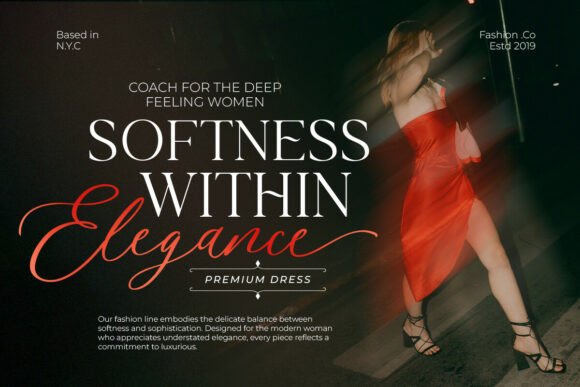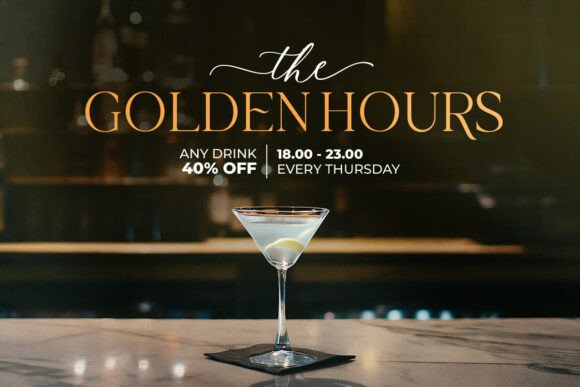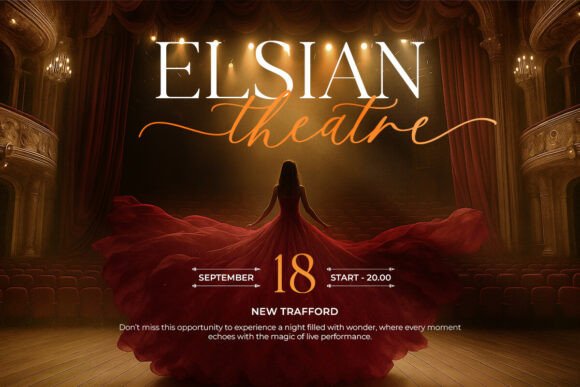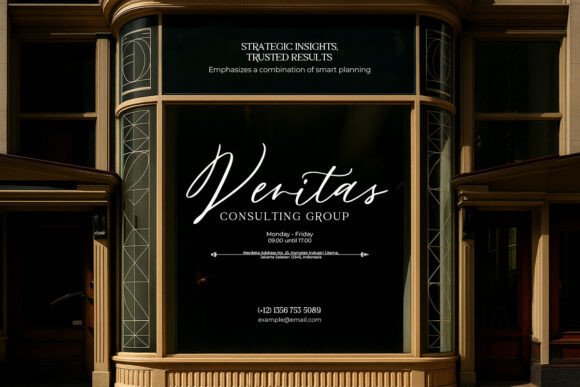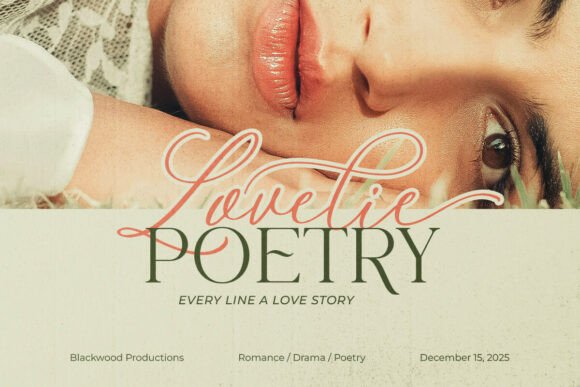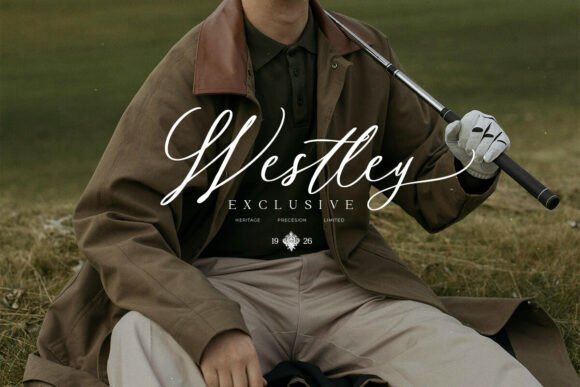
Eternal Melody Duo Font: A Timeless Typographic Pairing for Romantic Designs
Are you searching for a font duo that exudes romance, elegance, and versatility? Look no further than the Eternal Melody Duo Font. This stunning pair combines a classy serif with a graceful handwritten script, creating a beautiful typographic pairing perfect for a wide range of design projects. In this article, we’ll dive into the features and benefits of Eternal Melody, and explore how it can elevate your designs, especially for Valentine’s Day and other romantic occasions.
A Perfect Pairing: Serif and Script Fonts
The Eternal Melody Duo Font consists of two complementary fonts: a serif font and a handwritten script font. The serif font features all caps characters, providing a sophisticated and classic look that’s ideal for headlines, titles, and branding. The script font, on the other hand, adds a personal and flowing touch, perfect for adding a touch of elegance and whimsy to your designs. With a range of ligatures and stylistic alternates, the script font offers endless possibilities for creative expression.
Eternal Melody is designed to work beautifully together, making it perfect for a wide range of design projects, including:
- Branding: Create a lasting impression with a custom logo or typography that showcases your brand’s personality.
- Logos: Design a unique and memorable logo that combines the serif and script fonts for a distinctive look.
- Wedding Invitations: Set the tone for a romantic and unforgettable wedding with elegant and sophisticated typography.
- Quotes: Add a touch of inspiration and motivation to your quotes with a beautiful and eye-catching font combination.
- Packaging: Elevate your product packaging with a custom typography that reflects your brand’s style and personality.
- Editorial Use: Enhance your editorial content with a sophisticated and elegant font duo that’s perfect for articles, blog posts, and more.
Multilingual Support and Functionality
Eternal Melody Duo Font offers more than just beauty; it also provides functionality and versatility. With multilingual support, you can use this font duo for designs that cater to a global audience. Whether you’re creating content for a international brand or a personal project, Eternal Melody has got you covered.
Perfect for Valentine’s Day and Romantic Occasions
Valentine’s Day is just around the corner, and Eternal Melody Duo Font is the perfect choice for creating romantic and memorable designs. From custom invitations and greeting cards to social media graphics and website headers, this font duo will add a touch of elegance and whimsy to your creations. Make your loved ones feel special with a beautiful and heartfelt message, crafted with Eternal Melody’s stunning typography.
Why Choose Eternal Melody Duo Font?
With so many font options available, why choose Eternal Melody Duo Font? Here are just a few reasons:
- Unique and Versatile: Eternal Melody offers a distinctive and versatile font combination that’s perfect for a wide range of design projects.
- Elegant and Romantic: This font duo exudes romance, elegance, and sophistication, making it perfect for Valentine’s Day and other romantic occasions.
- Multilingual Support: With multilingual support, you can use Eternal Melody for designs that cater to a global audience.
- Beautiful and Functional: This font duo offers both beauty and functionality, making it perfect for modern and romantic designs alike.
In conclusion, Eternal Melody Duo Font is a timeless typographic pairing that’s perfect for designers and crafters looking to create romantic and memorable designs. With its classy serif and graceful handwritten script, this font duo offers endless possibilities for creative expression. Whether you’re designing for Valentine’s Day or other special occasions, Eternal Melody is the perfect choice for adding a touch of elegance and whimsy to your creations.